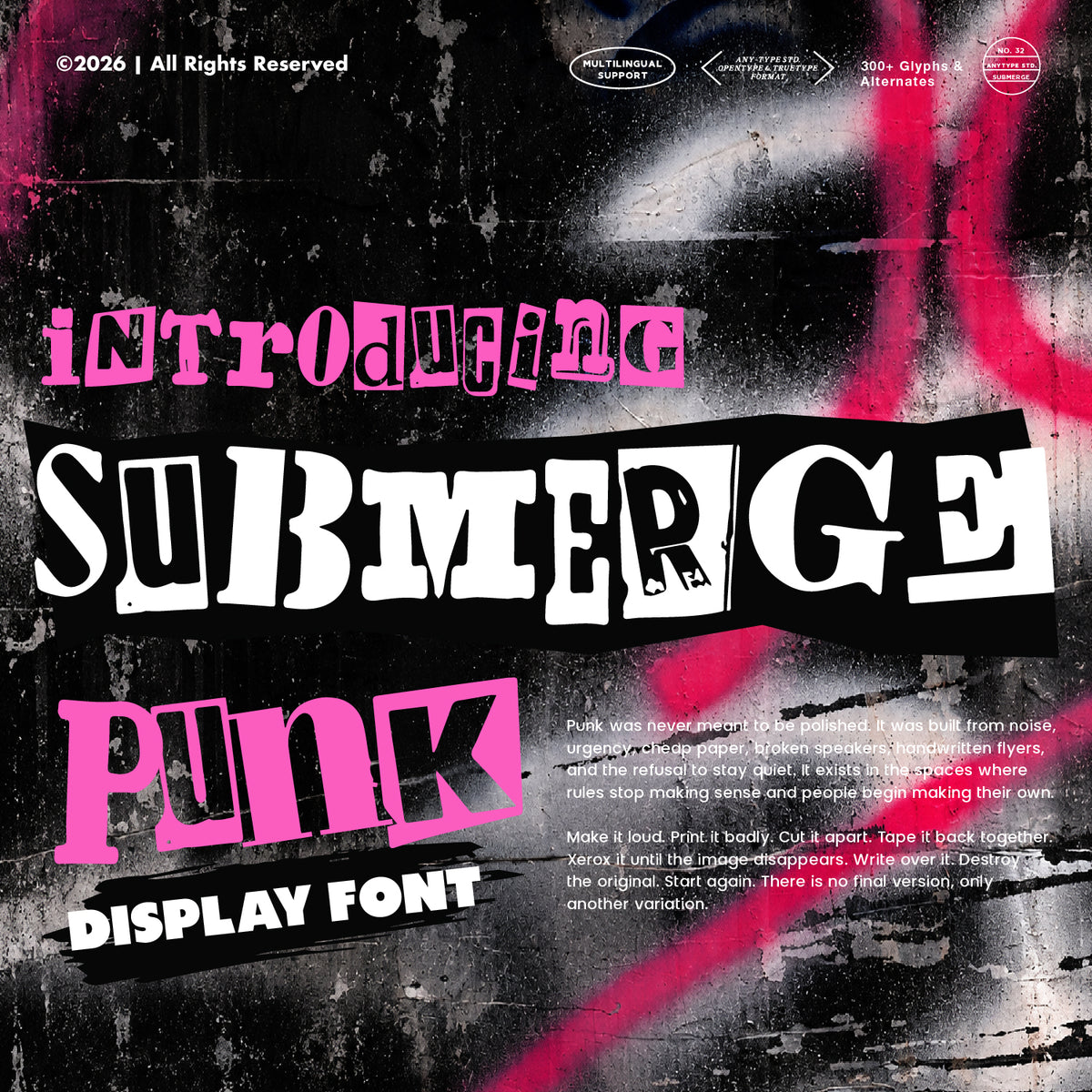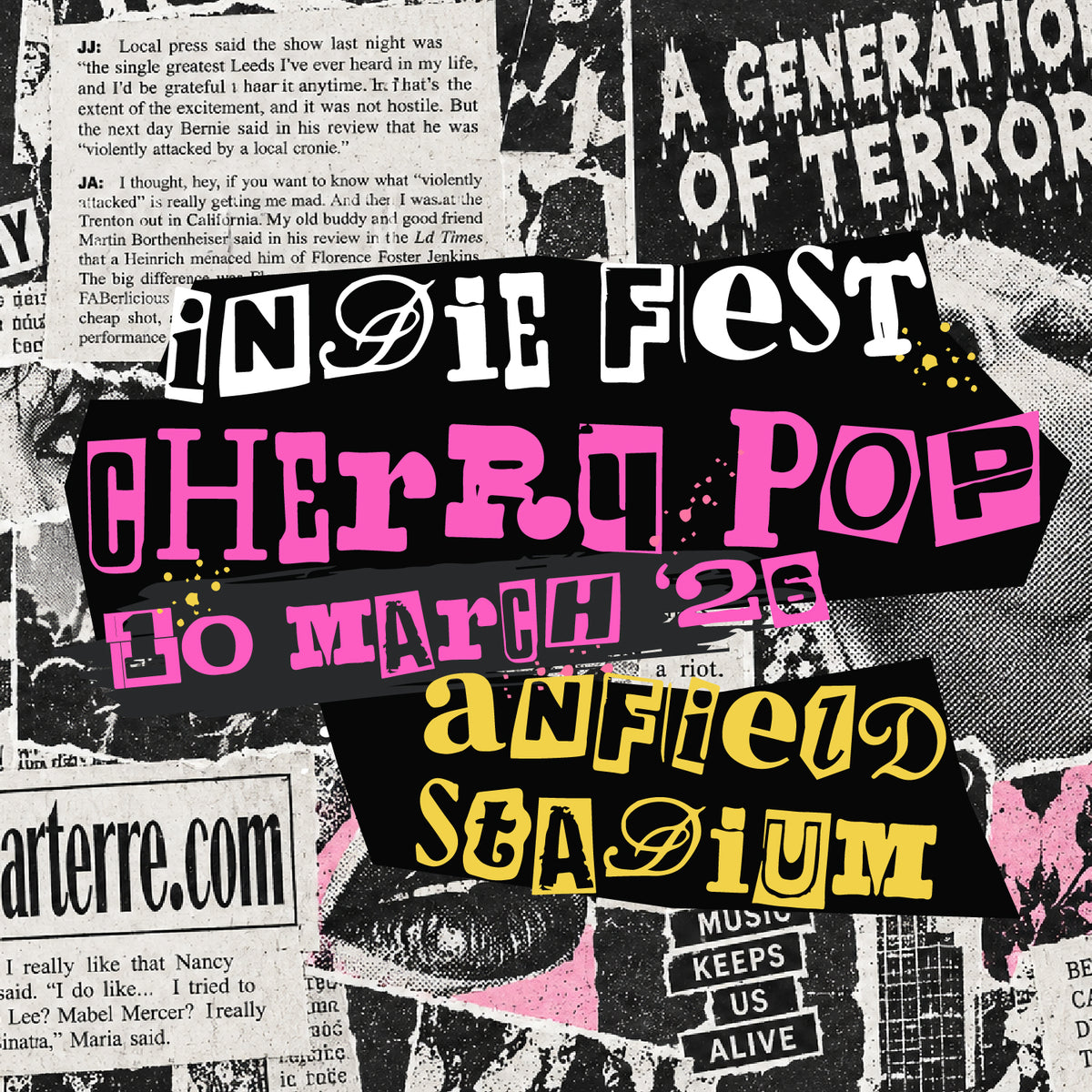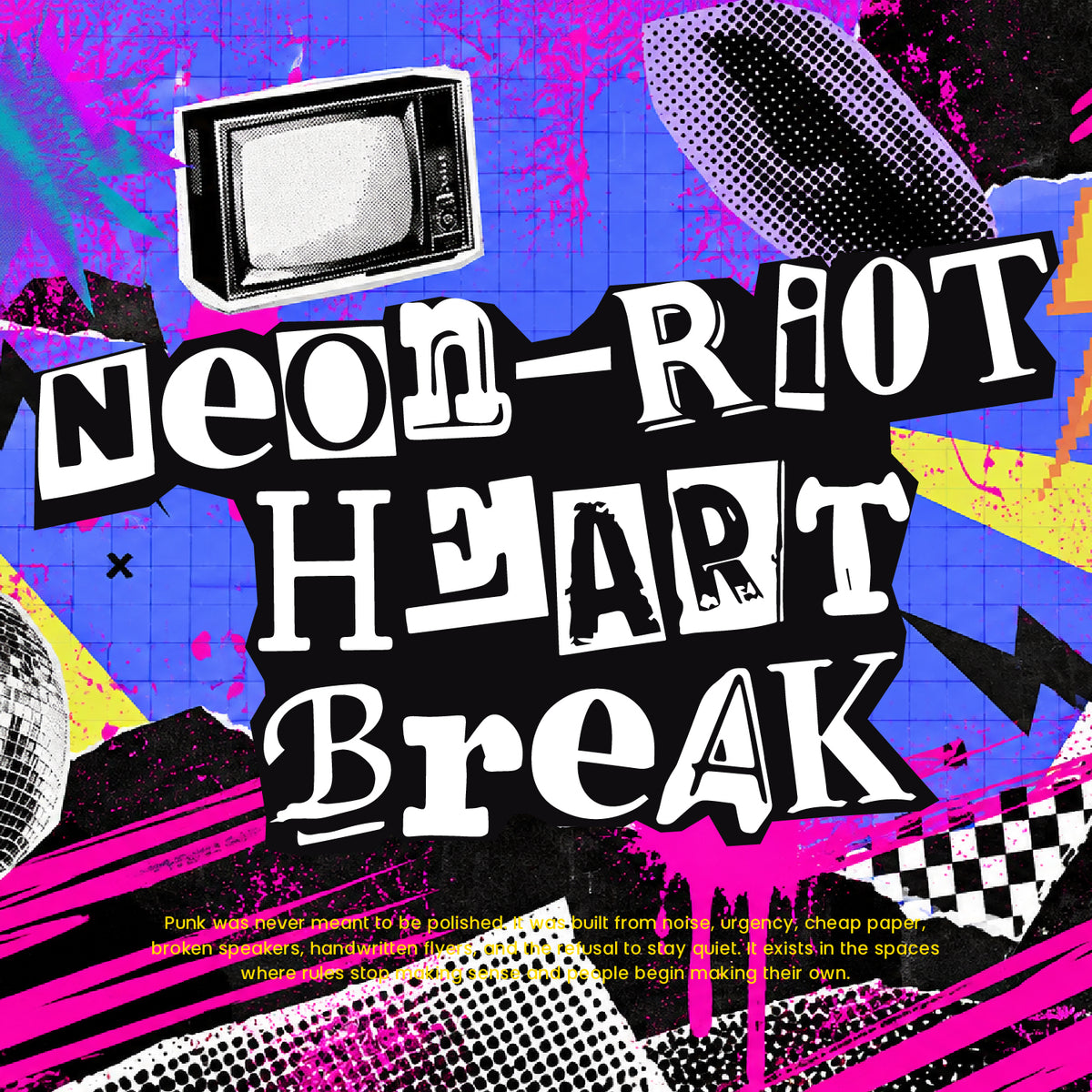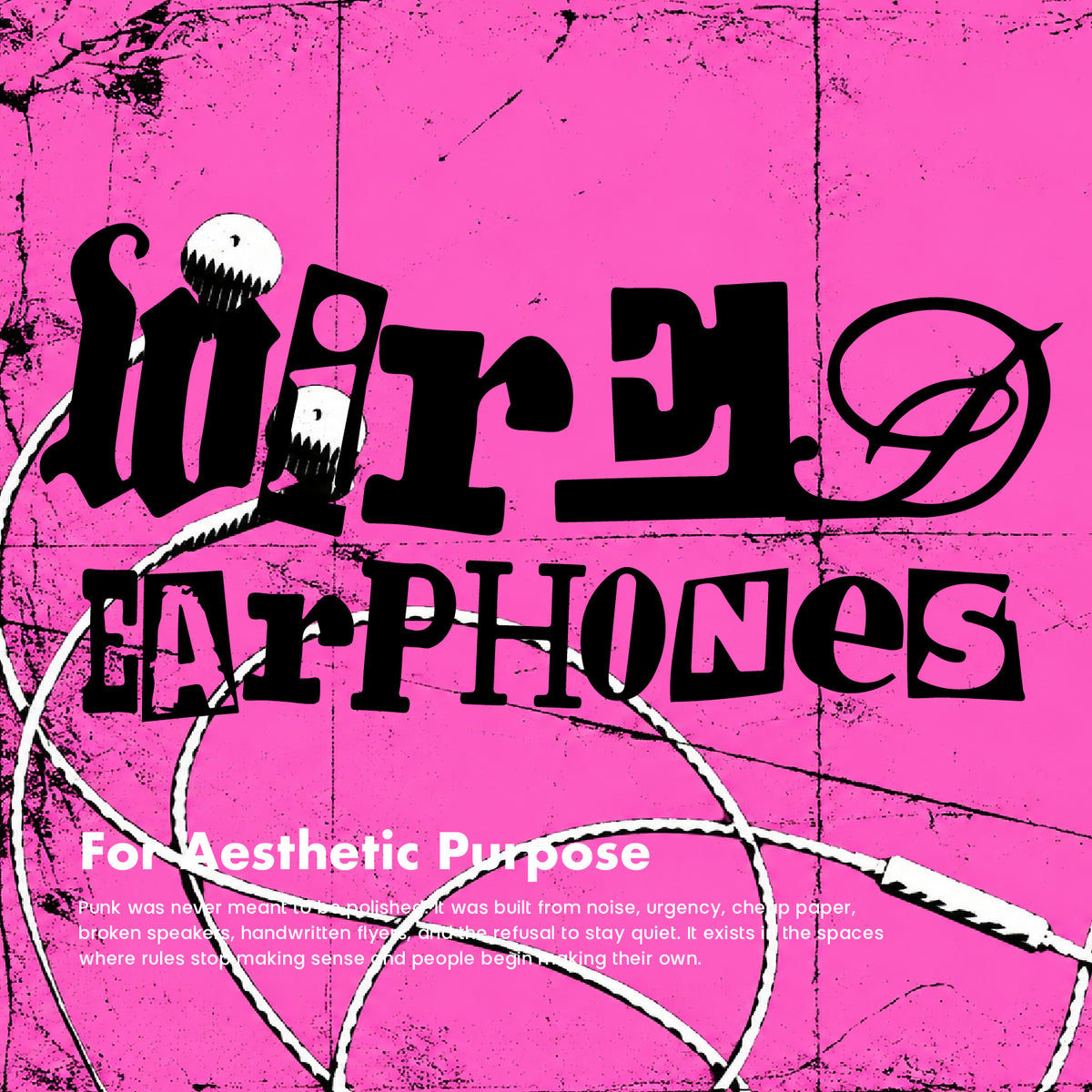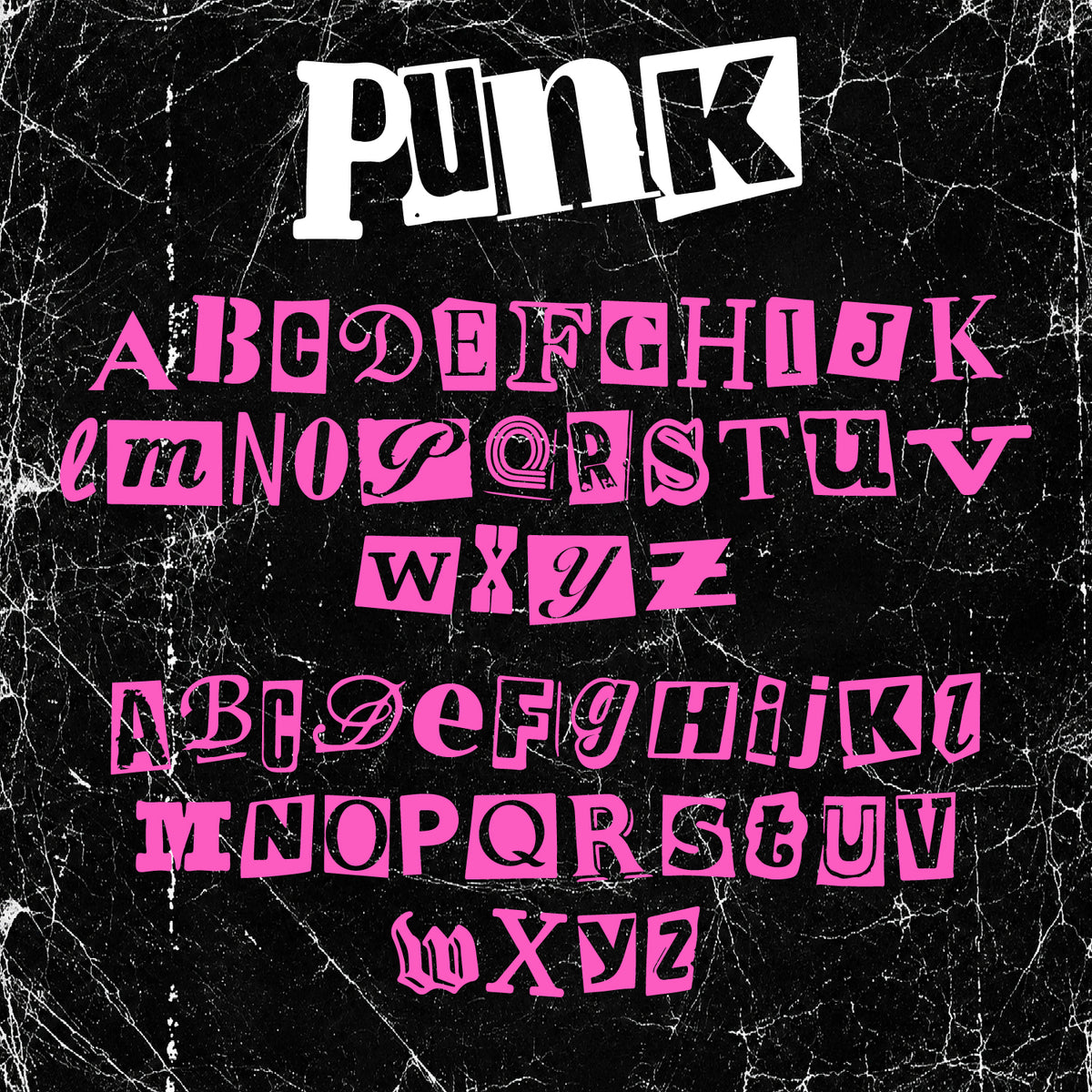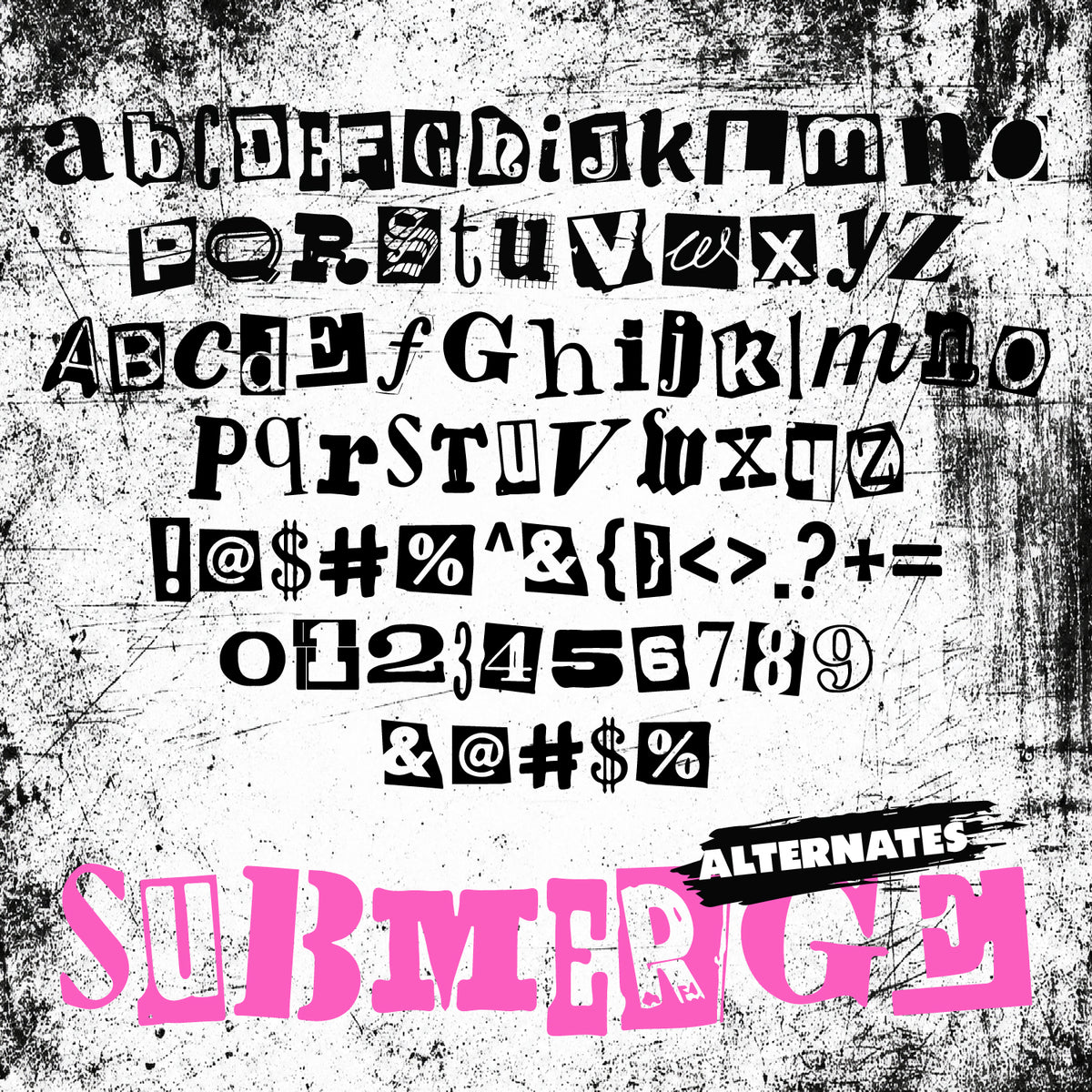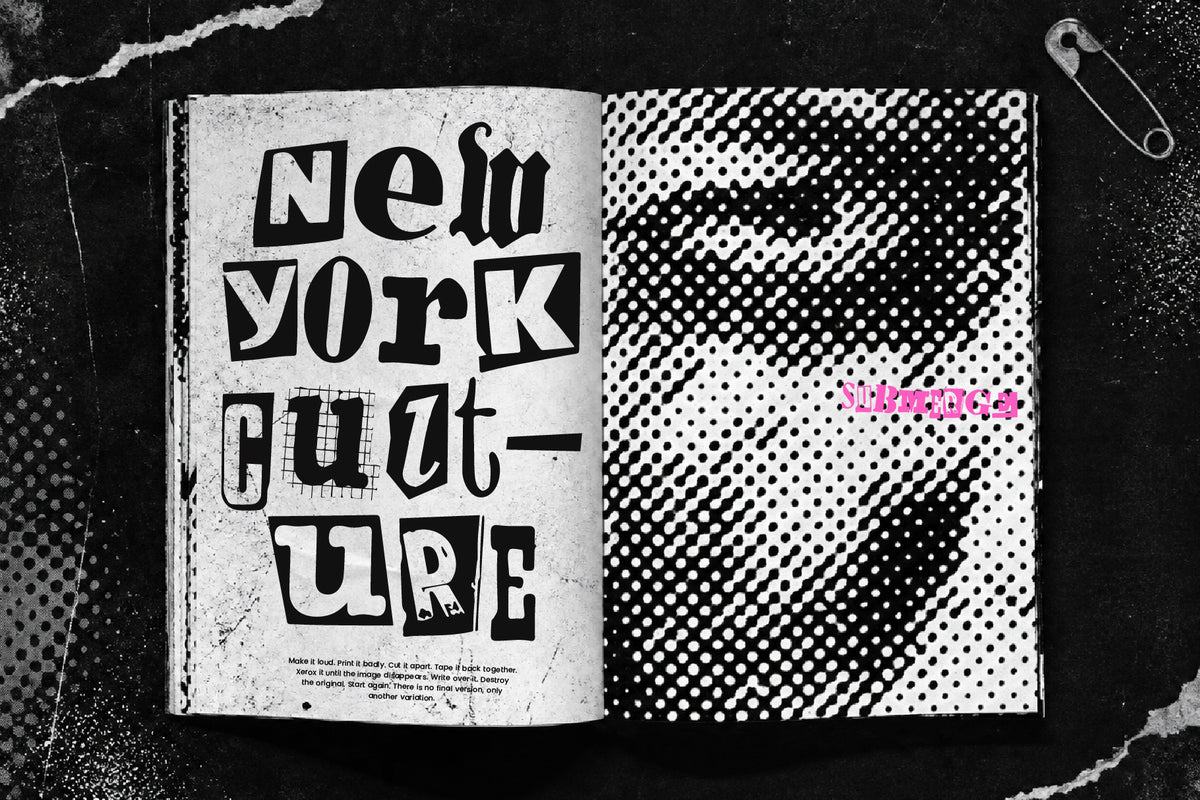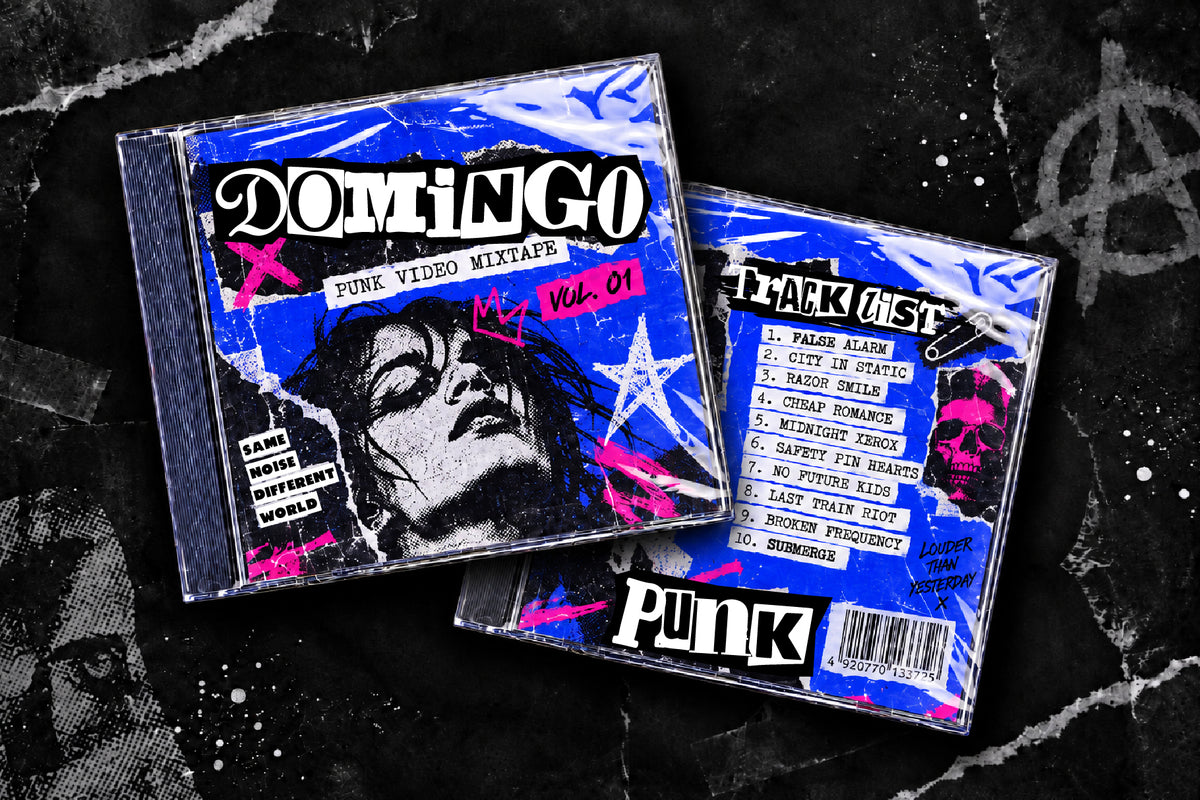
Submerge - Punk Display Font
Submerge is a raw and rebellious display typeface built for designs that refuse to stay quiet.
Inspired by punk culture, underground graphics, distorted print textures, and DIY aesthetics, Submerge combines expressive letterforms with an imperfect, energetic character. Every shape feels intentionally rough and unpredictable, giving your typography a strong handmade attitude while still remaining highly usable for contemporary design.
Submerge works especially well when typography needs to become the main visual statement. Use it for bold headlines, band artwork, album covers, posters, merchandise, editorial layouts, branding, streetwear graphics, packaging, social media campaigns, and experimental visual identities.
Its distorted details and unconventional personality make Submerge ideal for projects influenced by punk, grunge, alternative music, underground culture, brutalist design, and rebellious editorial aesthetics.
Whether used large as a dominant headline or mixed with clean typography for contrast, Submerge brings tension, movement, and unmistakable character to every composition.
Submerge is a display typeface featuring rough, distorted letterforms inspired by punk and underground design aesthetics. It includes irregular, imperfect character shapes suited for bold, high-impact typography.